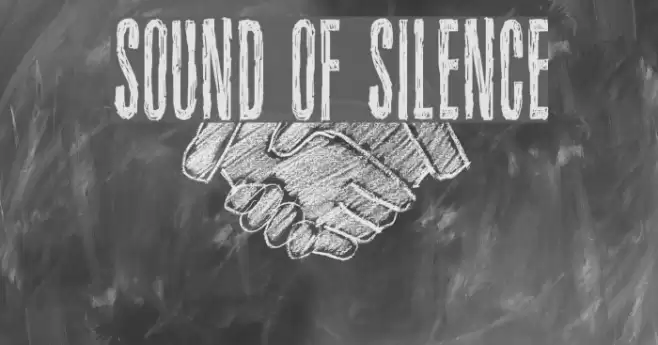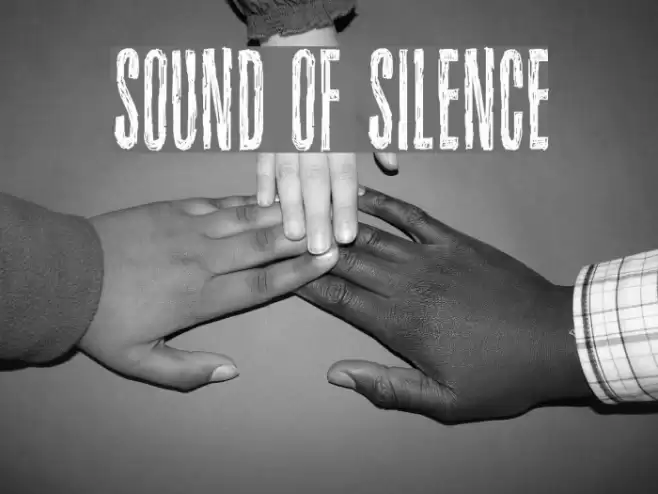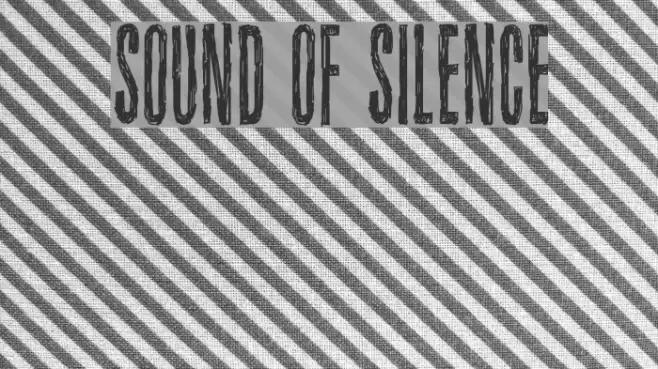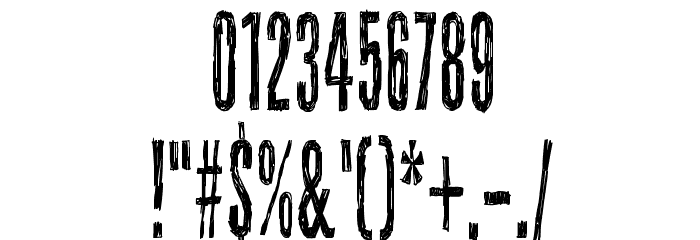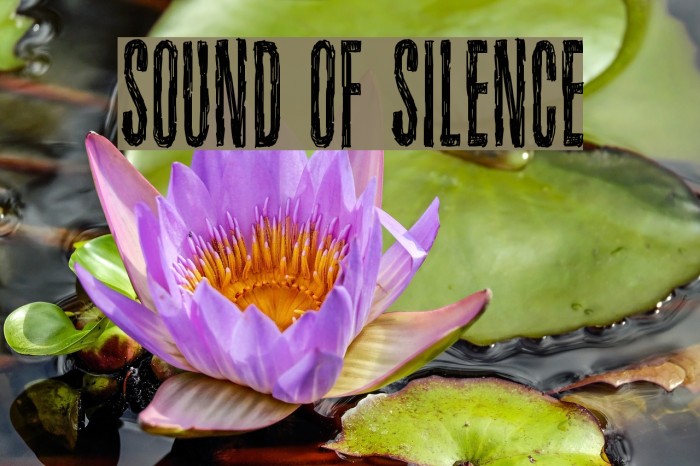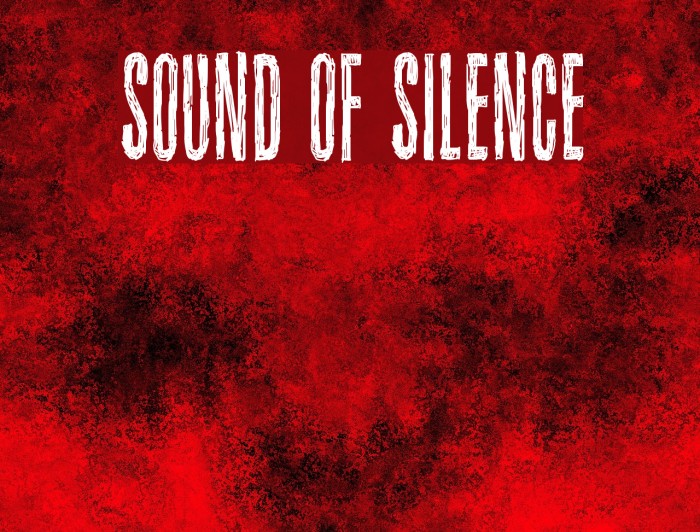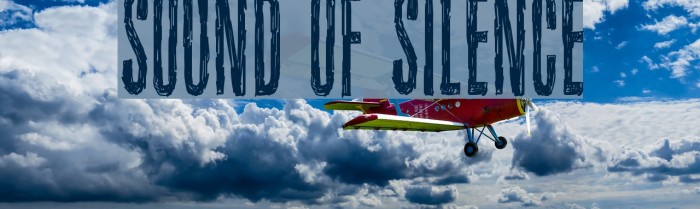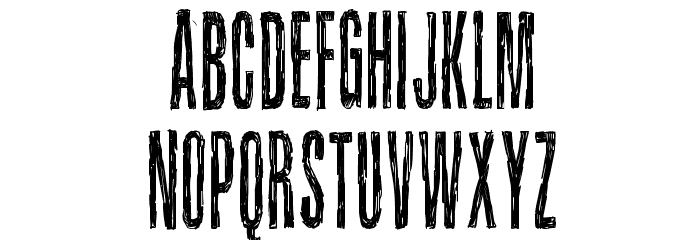
Sound of silence Font
Sound of silence Description
This font features a distressed, textured appearance, giving it a rugged and vintage feel. The characters are bold and slightly condensed, with uneven edges that create a worn, weathered look. This style is reminiscent of old printing techniques, where ink would not always transfer evenly, resulting in a unique, imperfect finish. The uppercase letters are prominent and commanding, while the lowercase letters maintain the same distressed aesthetic. Numbers and special characters follow suit, ensuring consistency across the entire typeface. This font is ideal for projects that require a touch of nostalgia or a handcrafted vibe.
A distressed, vintage-style font with a rugged, textured appearance from Distorted Eroded fonts.
- Proposed Projects: Ideal for vintage posters, album covers, branding for rustic products, or any design needing a handcrafted feel.
- Overall Style: Vintage